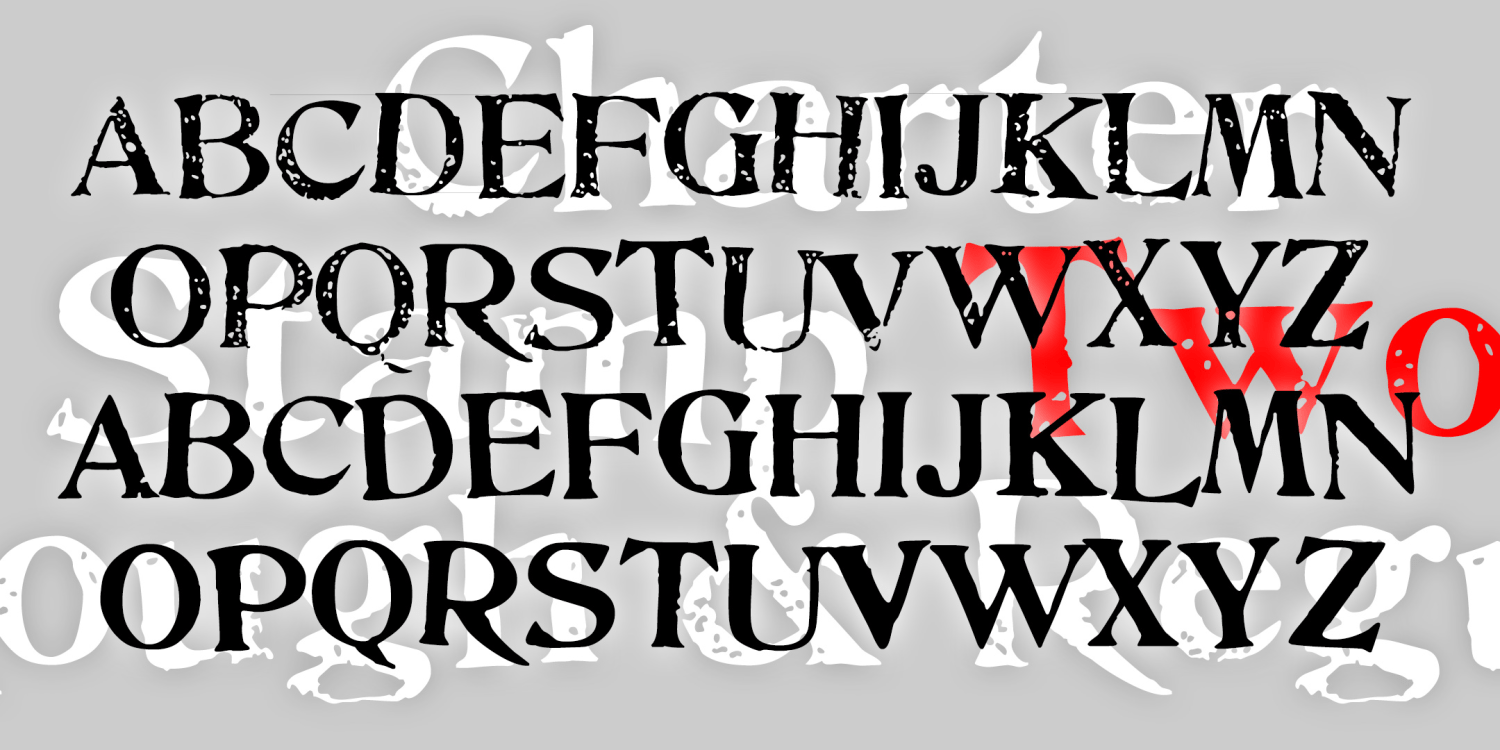
Charter Stamp Two
The set of four CHARTER STAMP fonts were inspired by two boxes of vintage rubber stamps.
I’ve married the two stamp sets (One is narrow, Two is wide) into one font set, and each has a Regular and Rough variety for an authentic rubber-stamp feel.
By the way, one of the rubber-stamp sets was labeled “Fulton Chart & Sign Marker," relating it to my popular ARTISTAMP series.